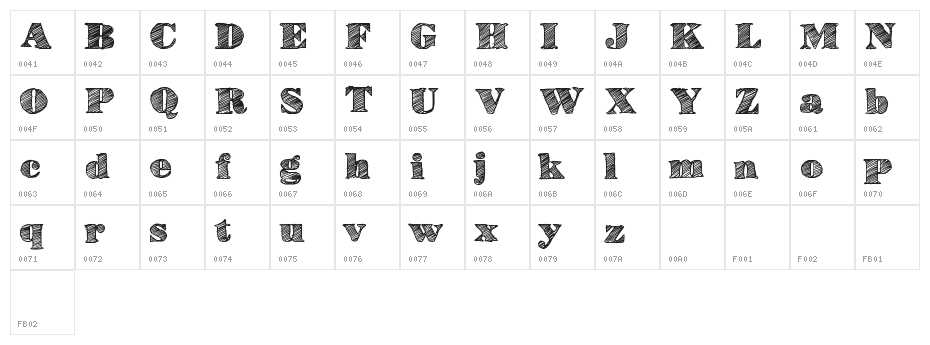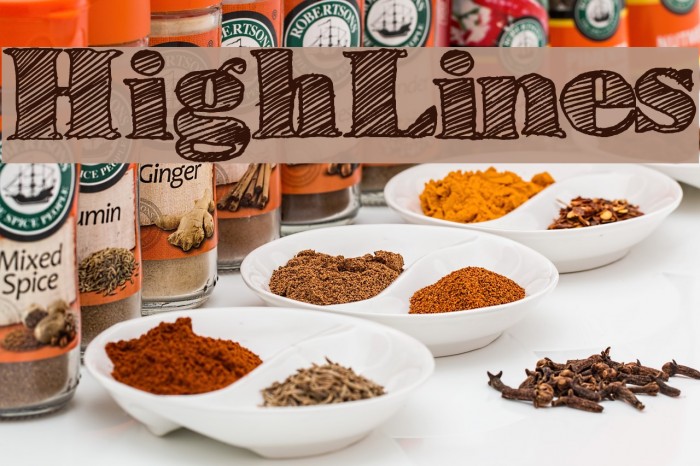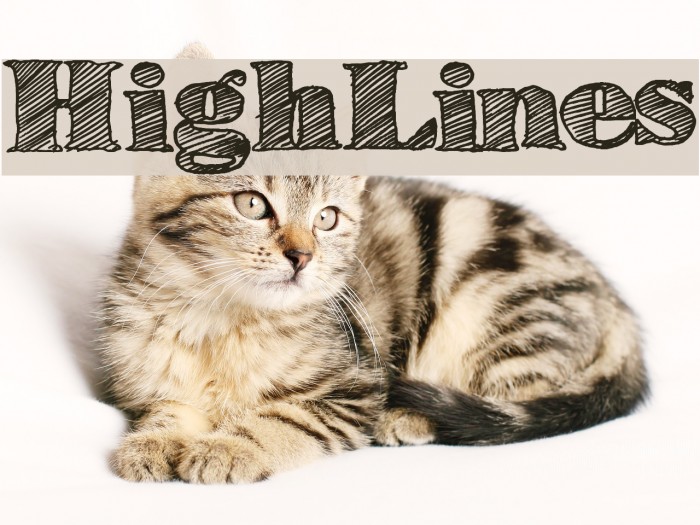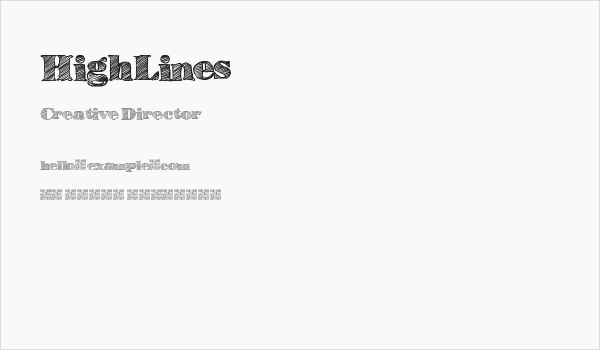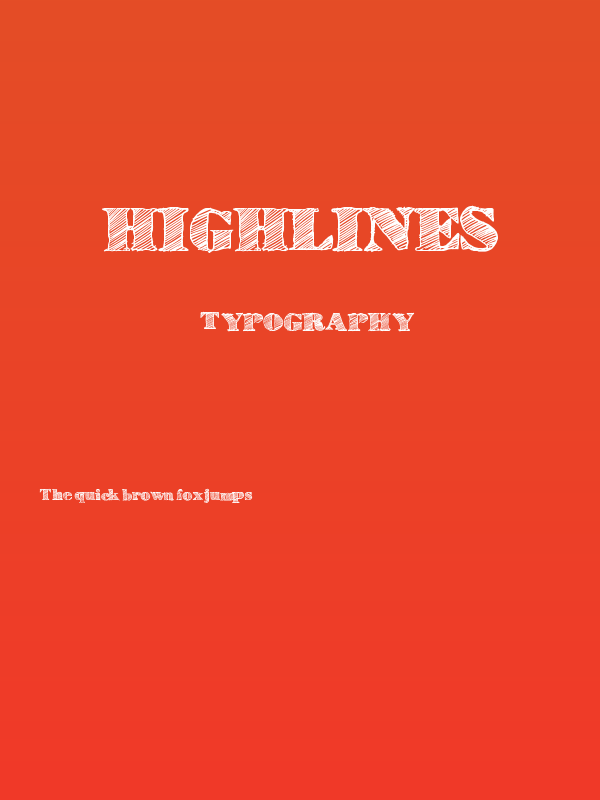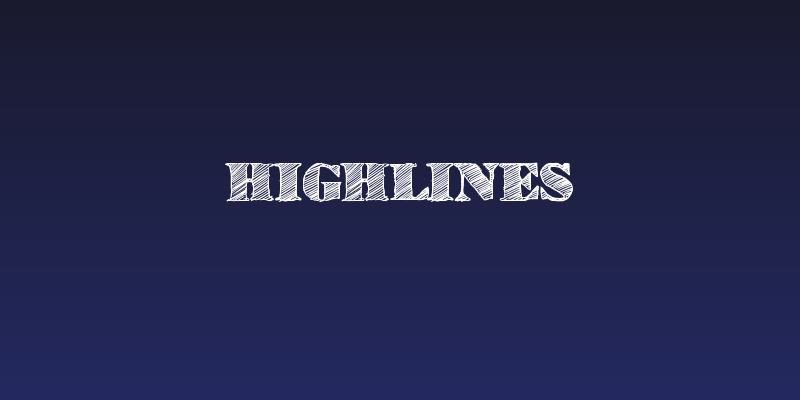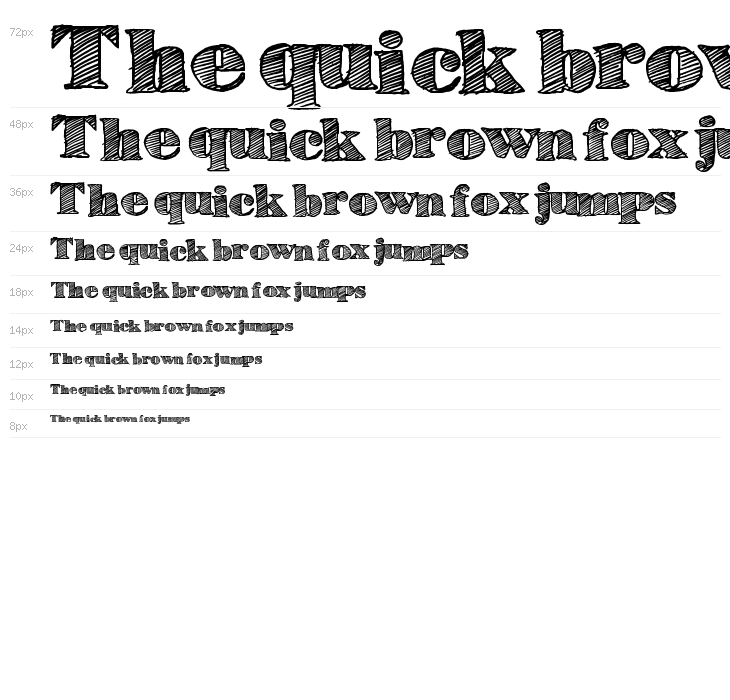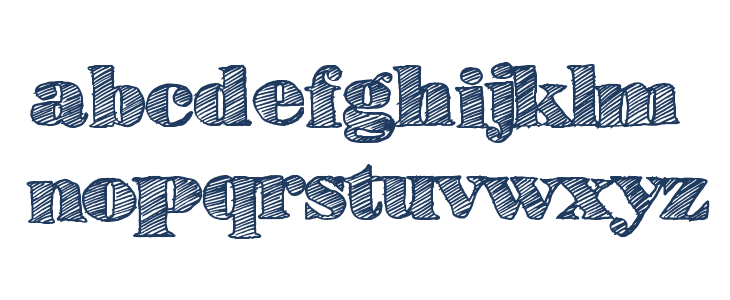
HighLines Font
HighLines Description
This font features a bold, textured style with a hand-drawn appearance, characterized by its sketch-like, diagonal hatching within each letterform. The uppercase and lowercase letters maintain a consistent weight, creating a cohesive and visually striking look. The font's playful and artistic nature makes it stand out, with each character exhibiting a unique, handcrafted feel. The numbers and special characters follow the same design principles, ensuring uniformity across all glyphs. This font's distinctive style is perfect for creative projects that require a touch of whimsy and individuality.
| Proposed Projects | Ideal for posters, artistic branding, children's books, and creative invitations. |